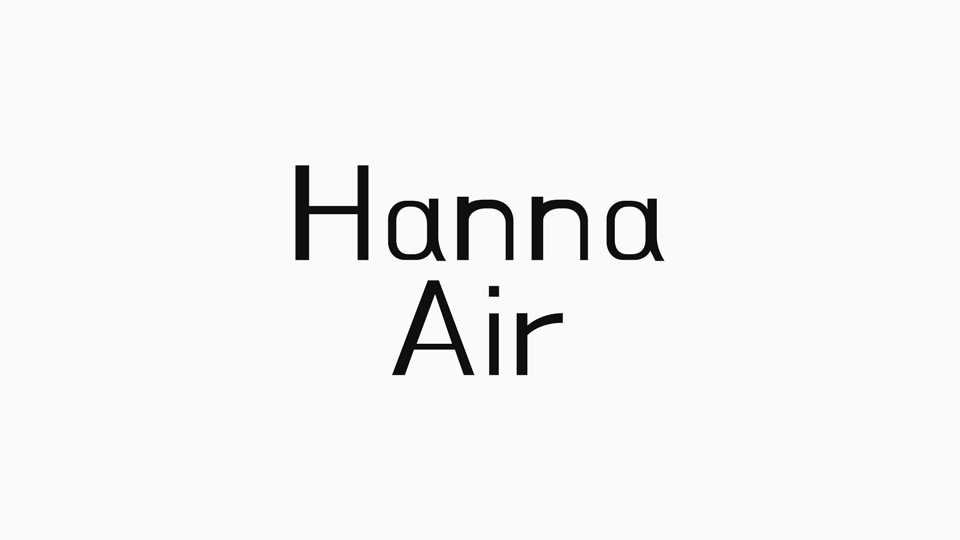
Download Hanna Air font, a typeface designed as a body text font to perfectly complement the thick, heavy lettering of Hanna Is Eleven, a favorite choice for titles and headings. Elegant and delicate, Hanna Air is especially readable at smaller point sizes.
Designer: Woowa Brothers